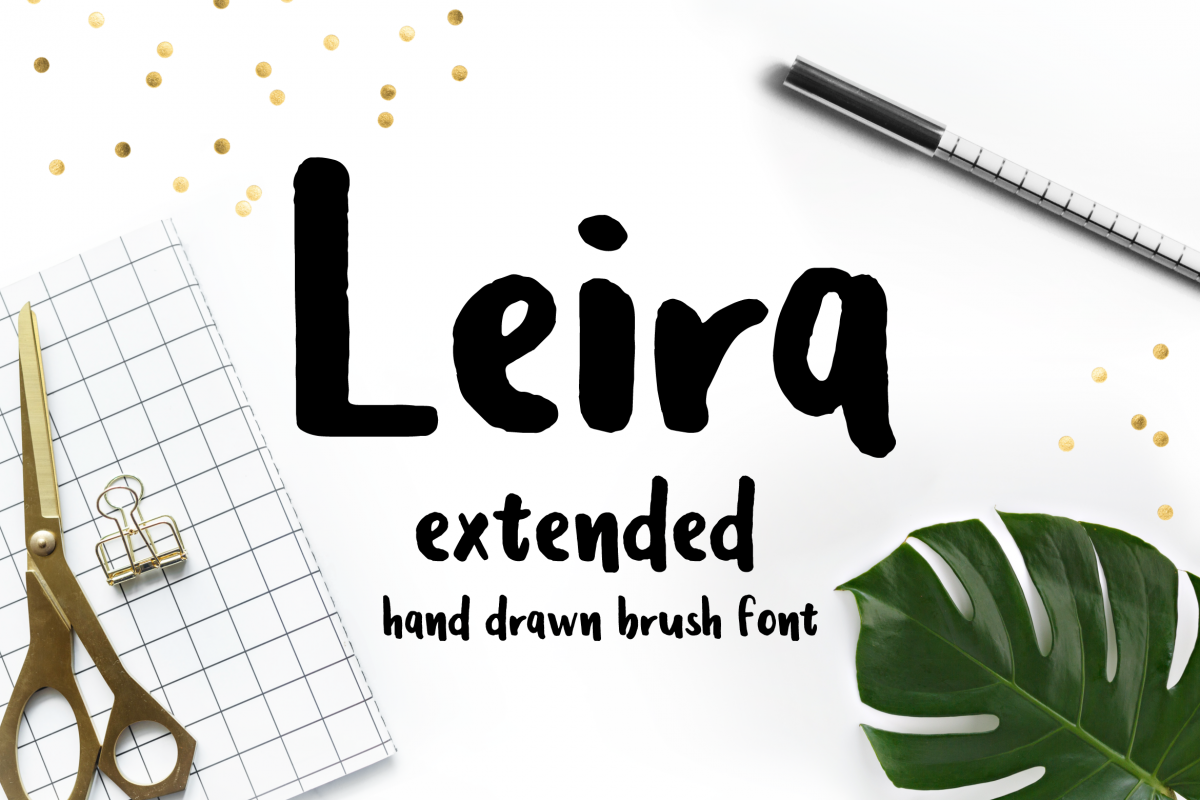
Leira Extended Hand Drawn Brush Font
Leira
Leira Extended Hand Drawn Font is a hand drawn brush font. This font has handwritten feel so it will give your designs personal touch. Bold characters will stand out and be easy to read. It's great for creating identities, logos, posters, cards and packaging design.